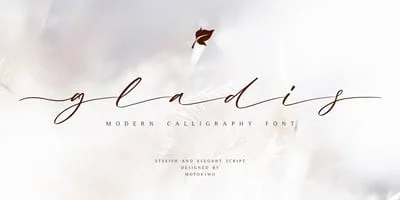
Gladis Font
Gladis Font is perfect for heartwarming brand communications, family-oriented businesses, community center signage, cheerful children's products, optimistic marketing campaigns, friendly service industries, welcoming hospitality brands, positive lifestyle blogs, inspirational greeting cards, and any projects that need uplifting typography with joyful spirit and warm personality.
What makes Gladis Font exciting is its radiantly positive design that embodies pure joy and optimism with letterforms that seem to smile from the page and spread happiness wherever they appear. This delightful typeface features warm characteristics with friendly proportions that create an atmosphere of genuine kindness and authentic cheerfulness, evoking sunny days, warm hugs, and the simple pleasure of spreading joy to others. The font's joyful character makes it perfect for brands seeking to communicate happiness, positivity, and the infectious optimism that makes the world a brighter place.
Gladis Font family includes cheerful style variations featuring light, regular, medium, and bold weights. The font family also offers uplifting italic versions with enhanced warmth, along with rounded variants that maximize the friendly appeal. Special features include happy ornaments, sunshine symbols, and joyful decorative elements that enhance the positive atmosphere of heartwarming design applications and community-focused communications.
Spread sunshine with Gladis Font and illuminate your creative projects with typography that brings smiles and radiates the kind of authentic warmth that makes people feel genuinely welcome and appreciated. This joyful typeface delivers heartwarming performance across all positive applications, ensuring your message resonates with the infectious happiness that builds communities and creates lasting bonds. Download Gladis Font today and brighten the world with typography that celebrates the simple power of kindness, creating meaningful connections with audiences who believe that a little bit of joy can make all the difference in someone's day.